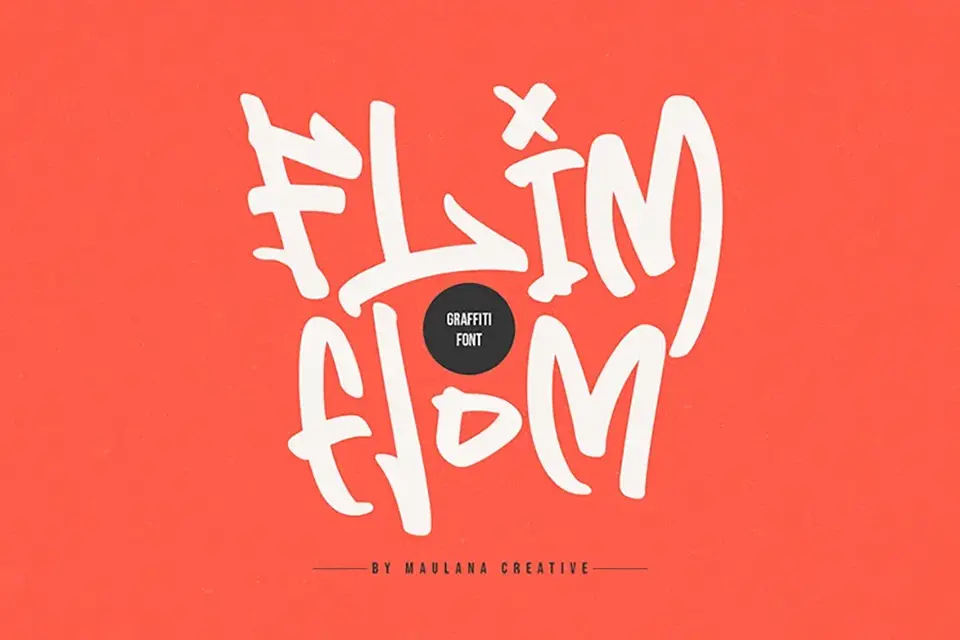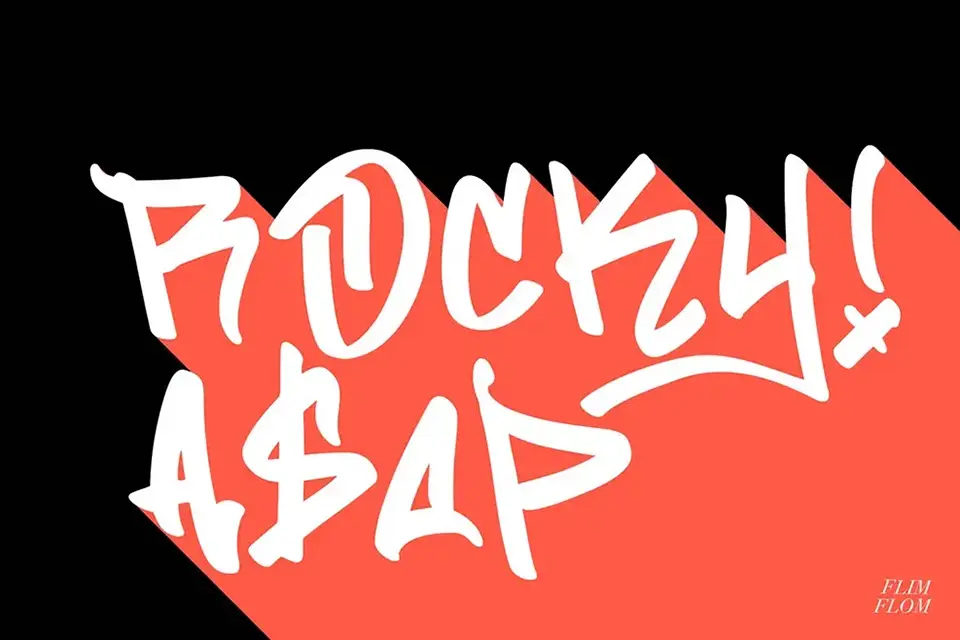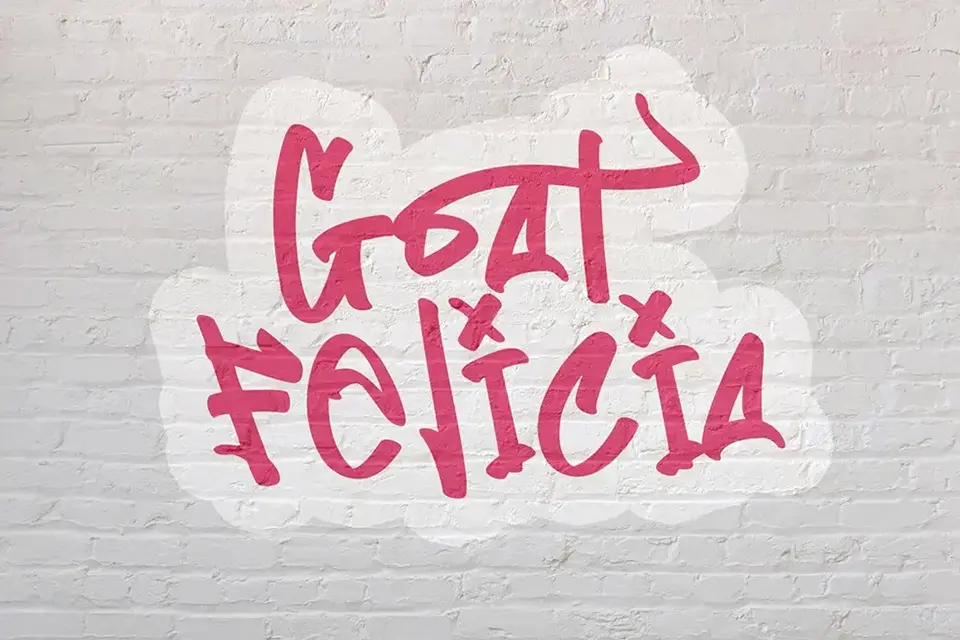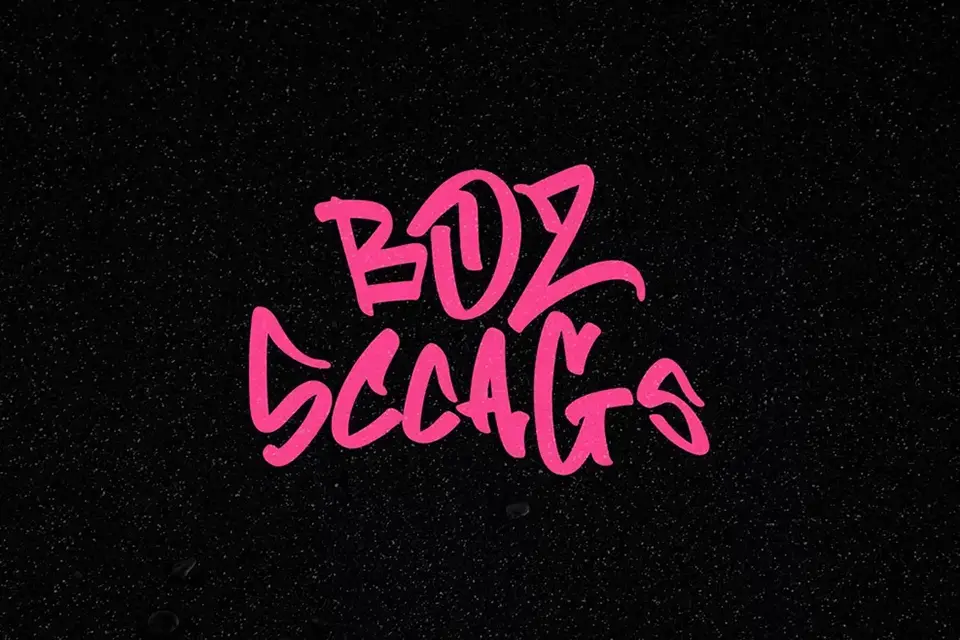
Flim Flom Graffiti Font
Flim Flom Graffiti is a striking display font featuring vibrant graffiti-inspired design with bold lines, rounded shapes, and chunky texture. Perfect for posters, logos, t-shirts, and digital projects seeking creative flair. This playful typeface combines urban street art aesthetics with friendly approachability, delivering raw energy and rebellious spirit. Ideal for social media graphics, website branding, and any project requiring distinctive visual impact with gritty charm and contemporary edge.